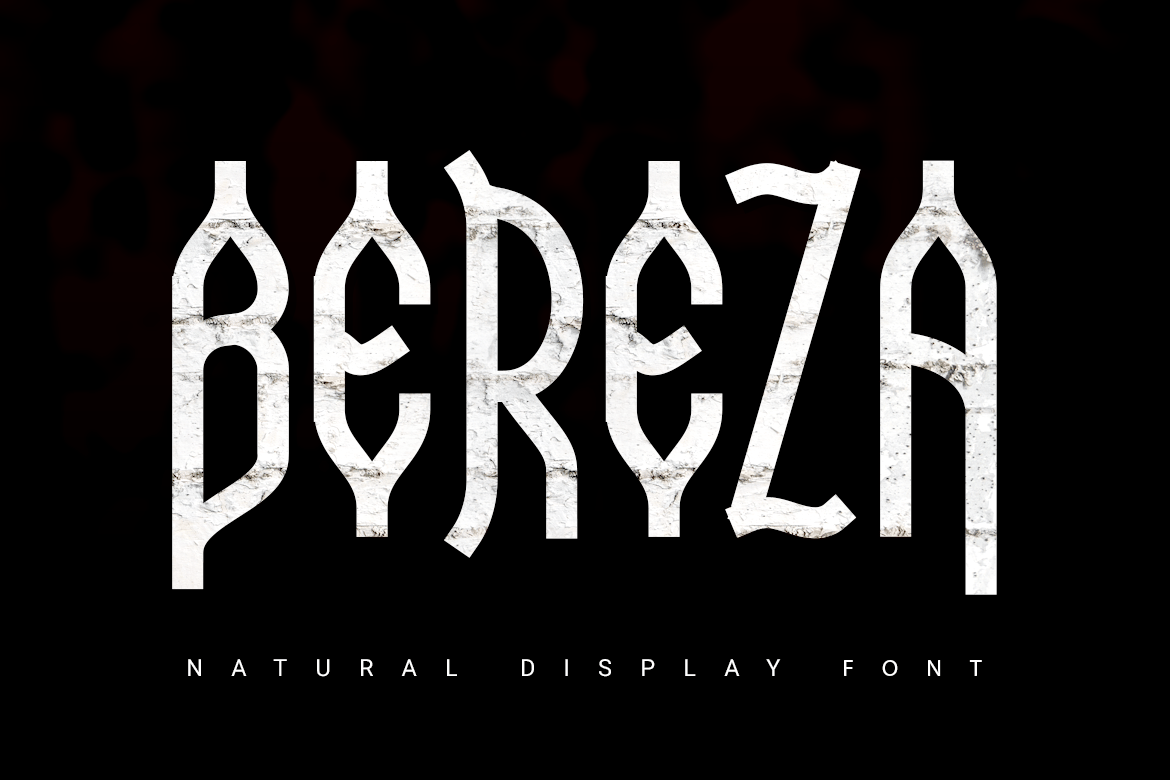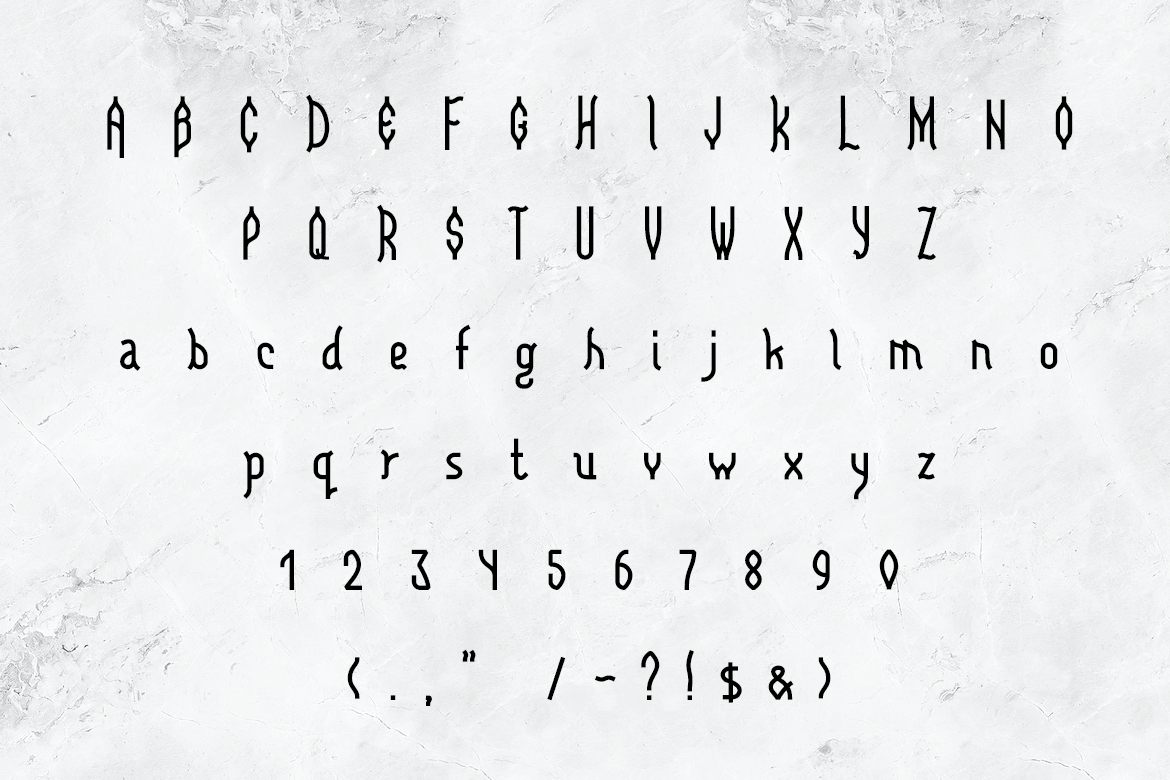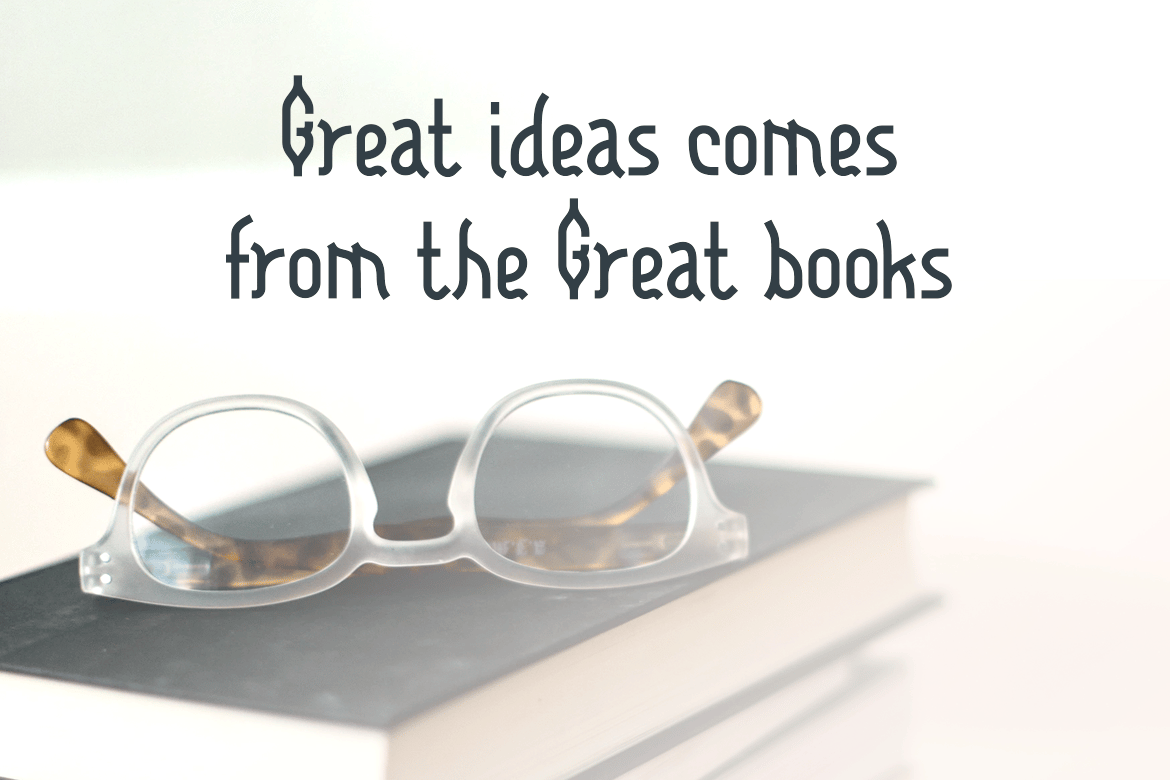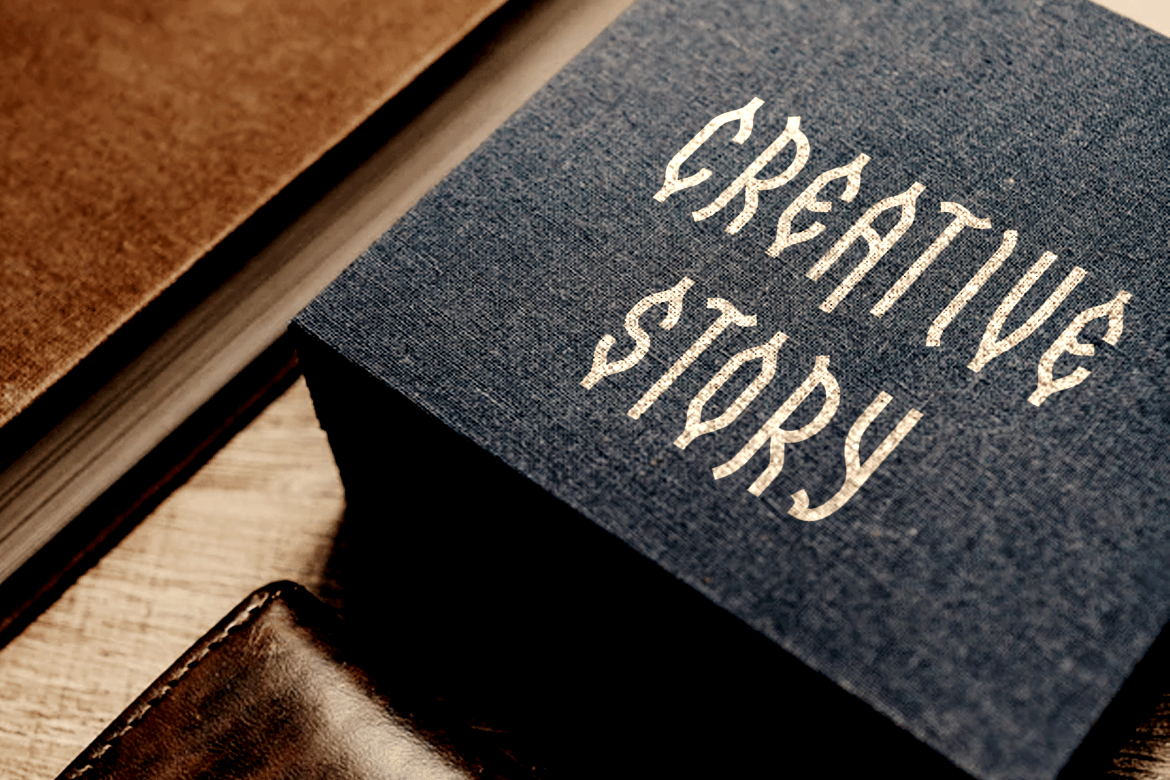
Bereza | nature font
Bereza is a sans serif font designed with thick lines and ethnic motives. The decorative font has elongated letters with protruding tips to make it more playful. The font looks good on both dark and light backgrounds, it works great to make short titles.